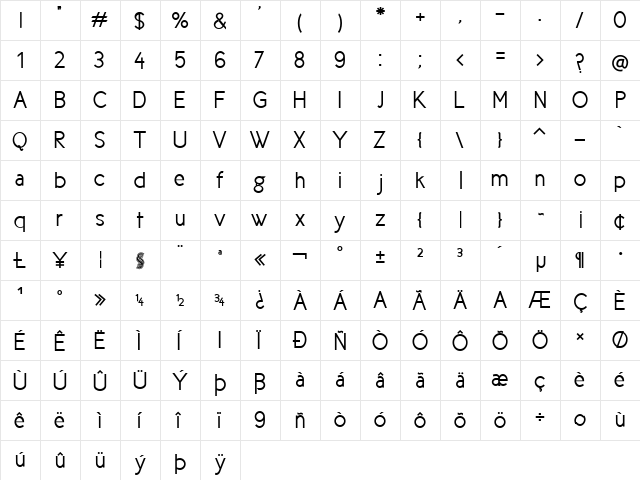
New Cicle Gordita
| Foundry | La Tipomatika |
| Designer | La Tipomatika (Digital Type Foundry) |
Design Context for New Cicle Typeface
New Cicle offers clean, dependable letterforms without strong stylistic allegiance, making it a practical choice for designers who need flexibility.
Pro Tip: Use New Cicle in both headline and body roles to test its range before committing to a single application.